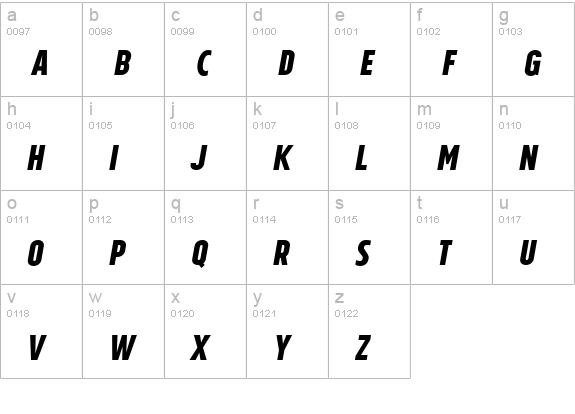
Tolyer Bold no.3 Oblique Font Details
Tolyer Bold no.3 Oblique is a strong, high-contrast, italic variant in the Tolyer typeface family \xE2\x80\x94 well suited to headlines, attention-grabbing titles, and strong calls-to-action.
The Tolyer Bold no.3 Oblique font is a stylish and modern typeface that exudes confidence and sophistication. Its slanted design adds a sense of dynamism and flair to any text, making it perfect for creating eye-catching headlines, titles, and branding materials. The bold weight of this font commands attention, while its sleek oblique angles give it a unique edge that sets it apart from other typefaces. Best of all, the Tolyer Bold no.3 Oblique font is completely free to download at FontsMarket.com, making it accessible to designers, creatives, and anyone looking to add a touch of elegance to their projects without breaking the bank. Whether you're designing a poster, website, or logo, this versatile font is sure to make a statement and leave a lasting impression on your audience. Elevate your designs with the Tolyer Bold no.3 Oblique font today!